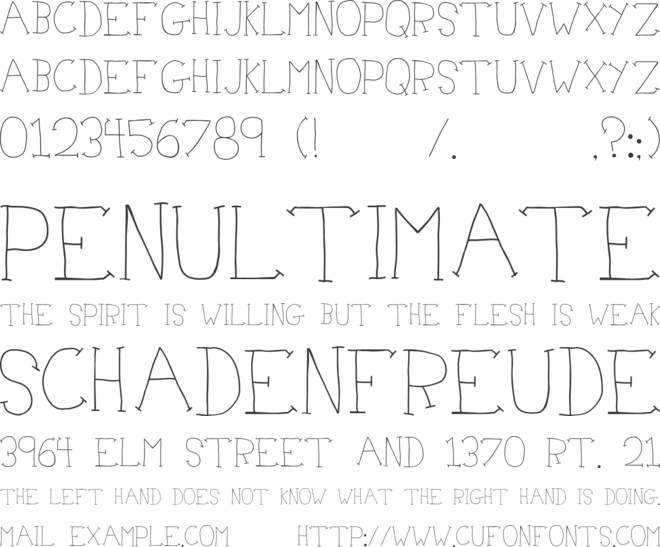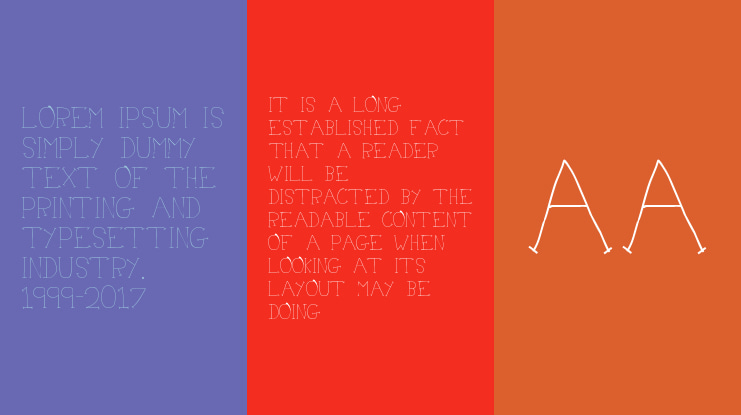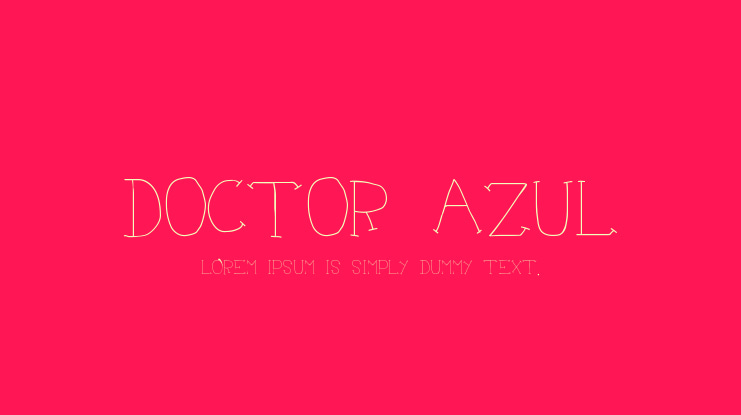
Doctor Azul Font
(Caps/Lower [same], Numbers, Most Punctuation, Some Special) is a handwriting-like font with serifs and little diagonal thingies that I don't know the typography term for. Mostly for headlines; I may do a lowercase set eventually.